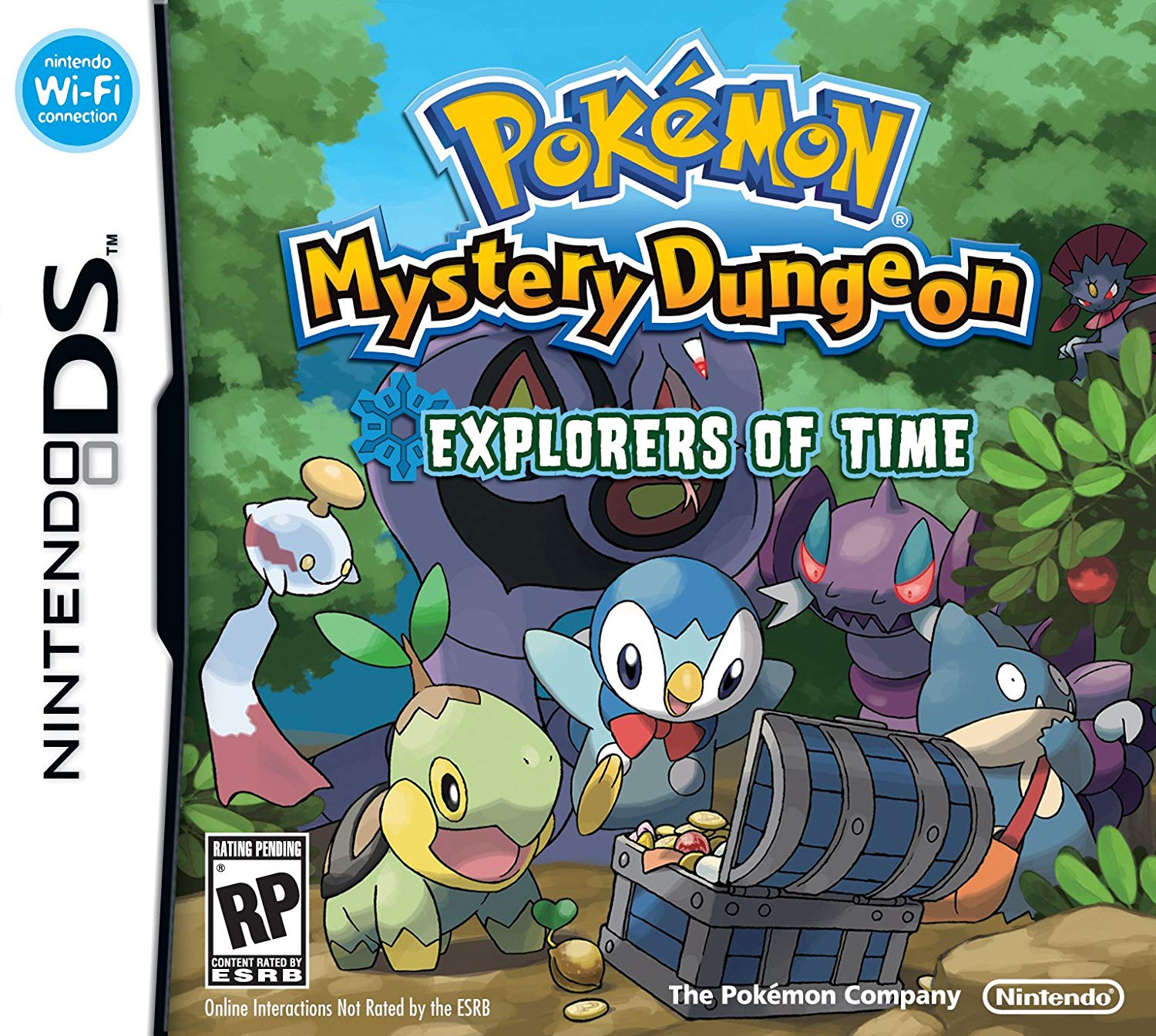
Pokémon Mystery Dungeon Font
Fonts in UsePokémon Mystery Dungeon is a series of video games that puts players in the role of a Pokémon, exploring dungeons, battling other Pokémon, and completing quests in a randomly generated world.
The image shown is the artwork for the 2007 Nintendo DS game Pokémon Mystery Dungeon: Explorers of Time. The font used for the "Mystery Dungeon" part resembles the Cafeteria Black font designed by Tobias Frere-Jones, while the "Explorers of Time" part appears to be written in the House of Terror font from House Industries.